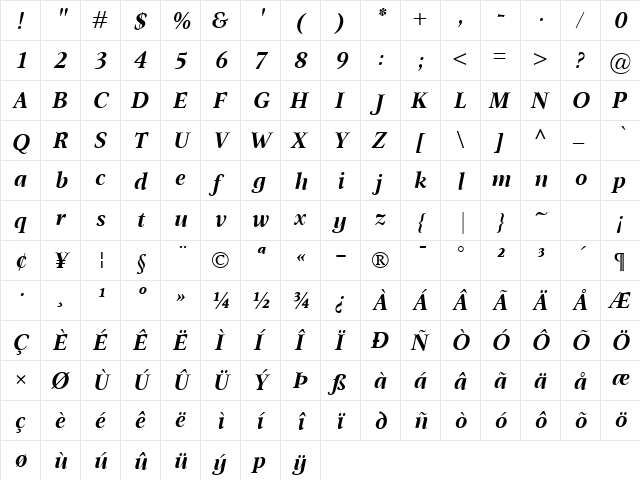
Omnibus BoldItalic
Design Context for Omnibus Typeface
Omnibus takes a measured approach to typography — its balanced proportions and neutral character make it a reliable workhorse for both digital and print work. The slanted form adds forward momentum and visual energy. Its bold stroke weight gives it real presence on the page.